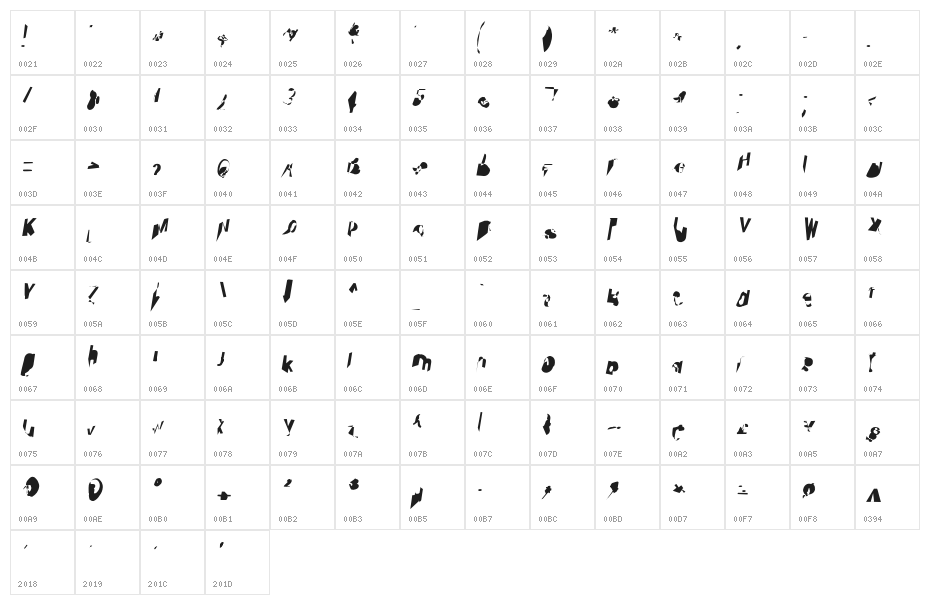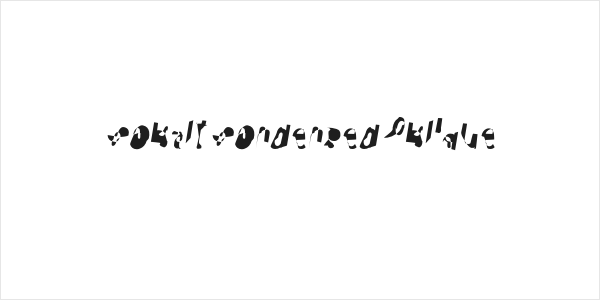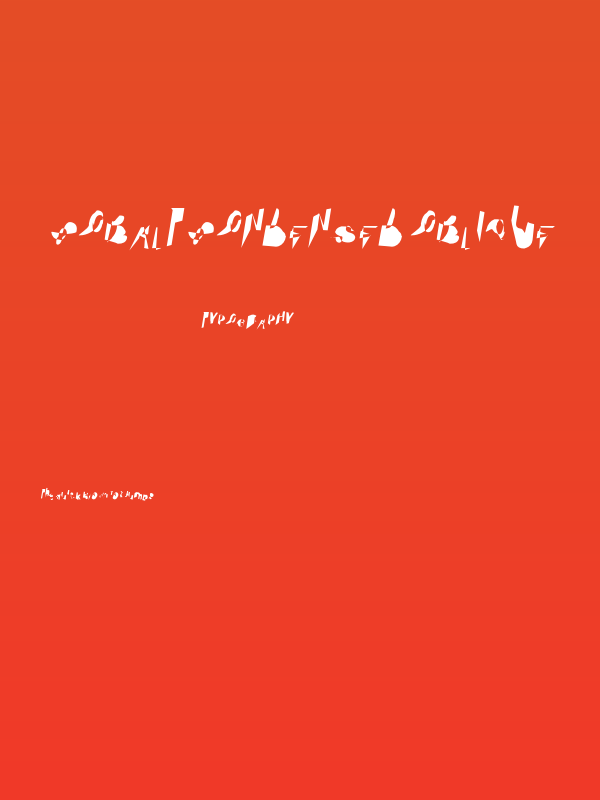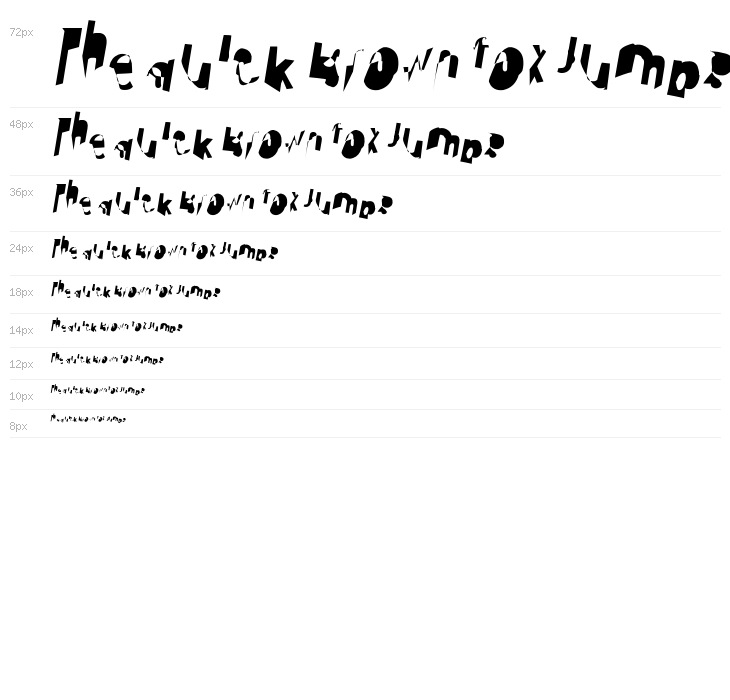
Cobalt Condensed Oblique Font
Cobalt Condensed Oblique Description
This font presents a highly stylized and abstract design, characterized by its fragmented and distorted letterforms. Each character appears as if it has been shattered or sliced, creating a dynamic and chaotic visual effect. The uppercase and lowercase letters, as well as numbers and special characters, maintain this fragmented style, making it a unique choice for artistic and unconventional projects. The oblique nature of the font adds to its sense of movement and energy, while the condensed width gives it a compact appearance.
| Overall Style | Modern, Abstract |
| Use Case | Logos, Posters, Artistic Projects |
| Proposed Projects | Ideal for avant-garde posters, album covers, and experimental digital art. |